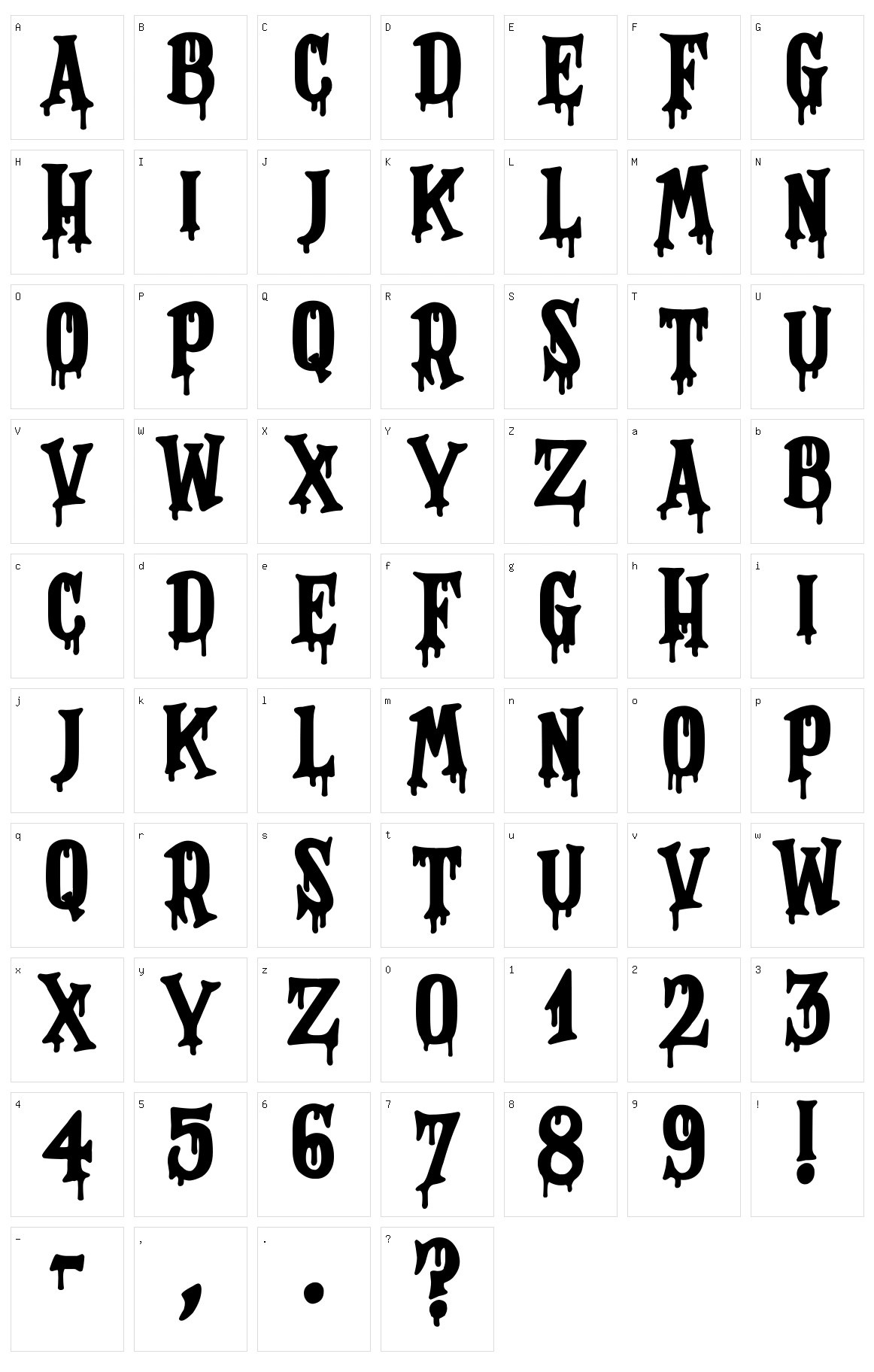
The free font Magnificent Nightmare is carefully designed by imagex, showcasing a thoughtful balance of creativity and usability and falls under the Halloween font style. When you download the ZIP file, it contains only 10.09 KB of font files, making it lightweight and quick to download. Please review the license details below to understand permitted usage and distribution rights. If license information is not available, we recommend using this font for personal projects only or contacting the author directly for commercial usage permissions.